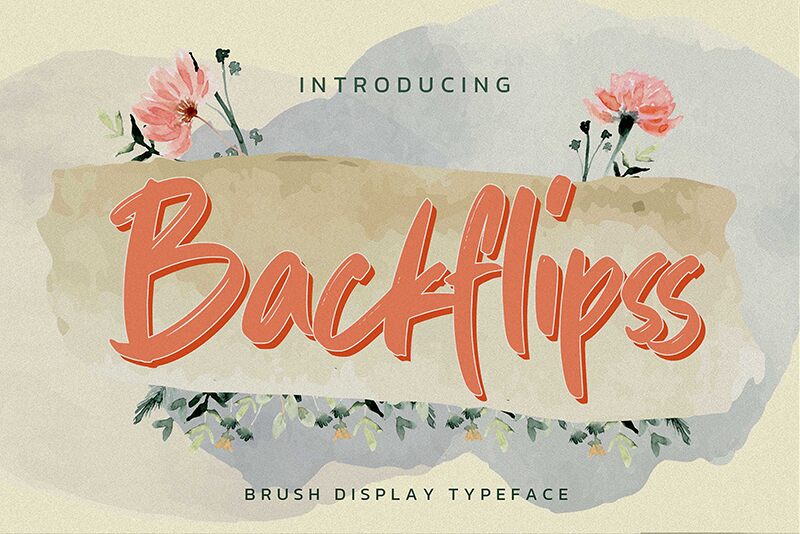
Backflipss, designed by Gassstype, is a brush-style font that exudes an energetic and dynamic character, perfect for making a bold statement. The semi-light weight of Backflipss gives it a fresh and airy feel while maintaining substantial presence on the page. Its handcrafted qualities suggest authenticity and creativity, making it ideal for designs that require a personal touch.
The sweeping strokes and occasional brisk flicks mimic the fluidity of handwriting, lending your projects an approachable yet sophisticated vibe. Whether you're crafting logos, attention-grabbing headers or playful merchandise, Backflipss is versatile enough to elevate your creative work with its distinctive aesthetic appeal. Embrace the spontaneity of Backflipss to infuse your designs with life and motion.